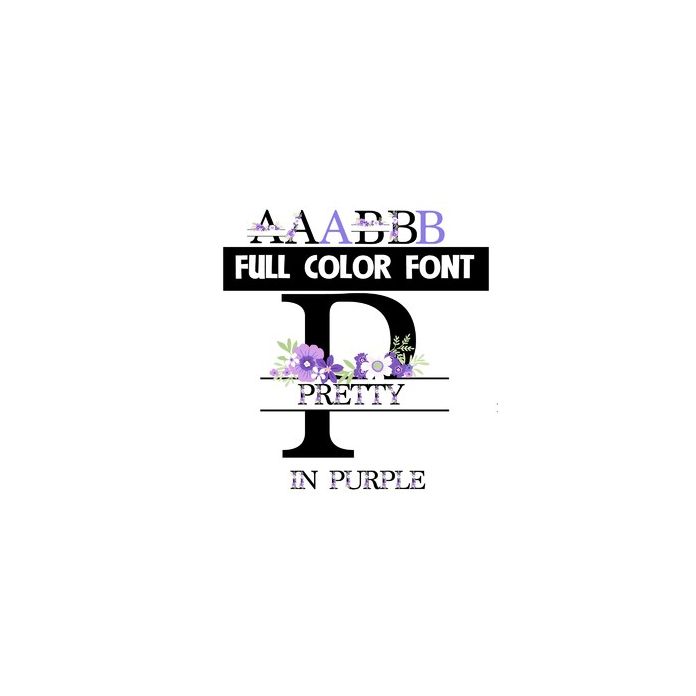
This full-color font an uppercase with a floral monogram banner that you can type into. The lowercase is a pretty floral and yYou can access another version of the letters by using the alt characters in Silhouette's glyph map.